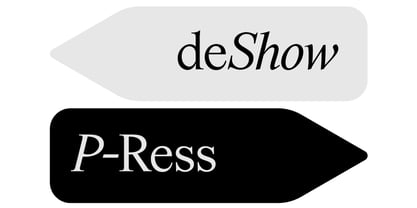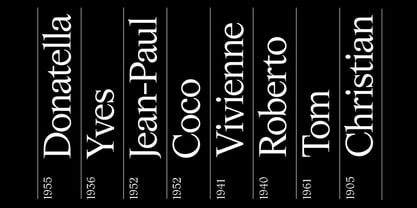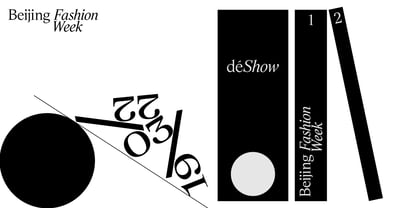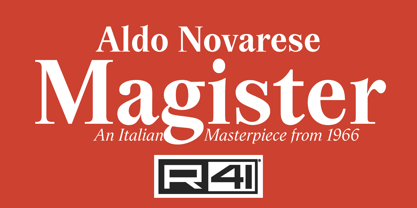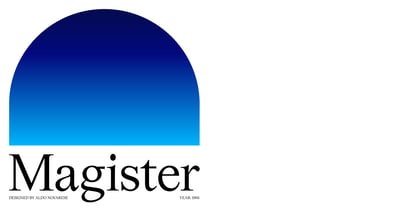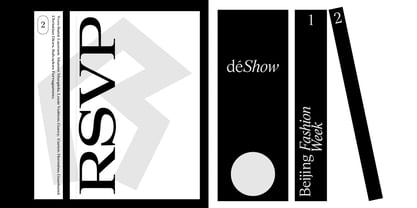
R41 Magister
The R41 Magister Font Family was designed by Aldo Novarese, Fulvio Bisca, Stefano Torregrossa and published by Reber R41. R41 Magister contains 5 styles and family package options. More about this family
R41 Magister is a modern Roman transitional font originally released by Nebiolo in 1966. This font was defined as stylistically close to traditional Romans, yet incorporates various design elements that enhance its suitability for contemporary applications. Through meticulous attention to chiaroscuro, serifs, and letter relationships, Novarese successfully merges aesthetic appeal with functionality. The result is a classic yet highly legible font that is versatile and ideal for diverse printing needs. Upon its release, this small masterpiece quickly gained popularity in communication and advertising, effectively addressing the growing demand for a harmonious blend of form and function in graphics and design.
Reber R41 is an Italian company founded in Spresiano, Treviso, in 1960 by Renato Bernardi, inventor of his own method of dry transfer type, and still run by his family. Since 1969, R41 has produced dry-transfer adaptations of iconic designs from Nebiolo Type Foundry, including its most experimental creations designed for the booming Italian advertising industry. Designer Aldo Novarese, who retired from Nebiolo in the early ’70s, worked with Reber R41 for years afterward designing brands, catalogues, advertising and of course…typefaces. Now Reber R41 provides new digitizations of the work of Novarese and Nebiolo of Turin, brought together in a unique collection that preserves the best of historic Italian typography of the twentieth century.